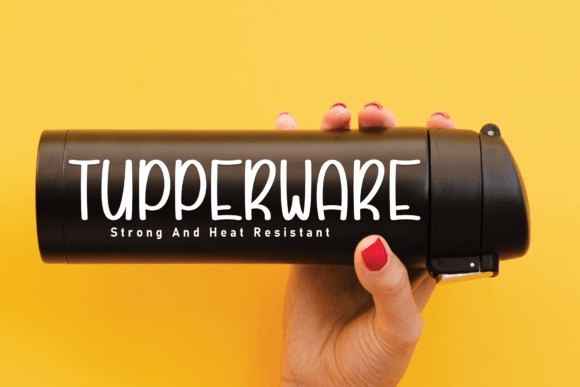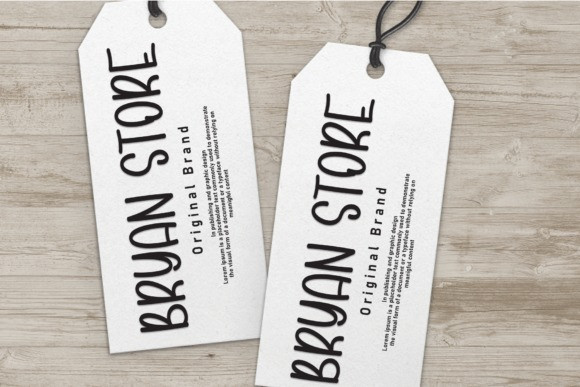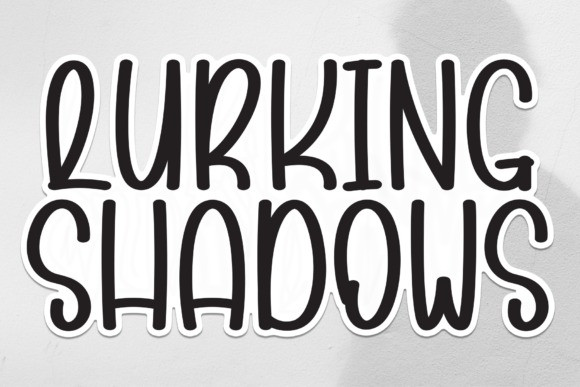
Lurking Shadows Font
Lurking Shadows Font is a sweet and friendly handwritten display font. Cute and fun, this font is ideal for writing wedding invitations, cards, or any other design that might need a fun touch!